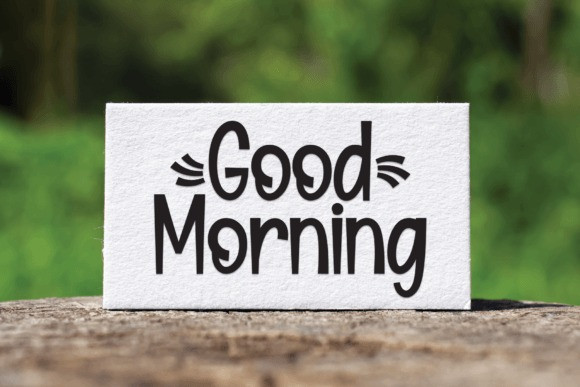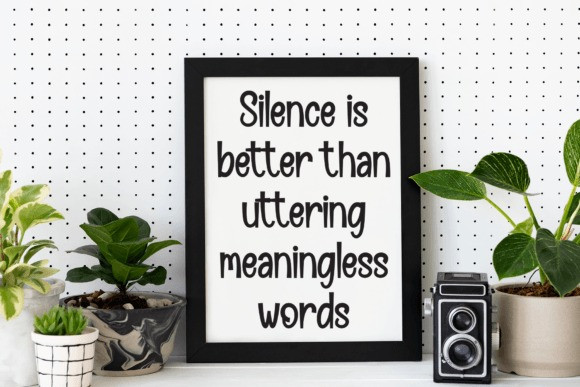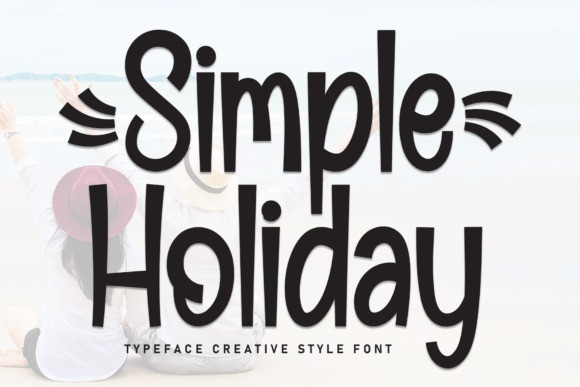
Simple Holiday Playful Font
Simple Holiday Playful Font is a fun and playful display font that sweetens your designs with delightful charm. Whimsical letterforms and a lighthearted demeanor capture the essence of playful indulgence. Ideal for projects seeking a dynamic and cheerful aesthetic, Simple Holiday adds a deliciously animated flair to your creative expressions.